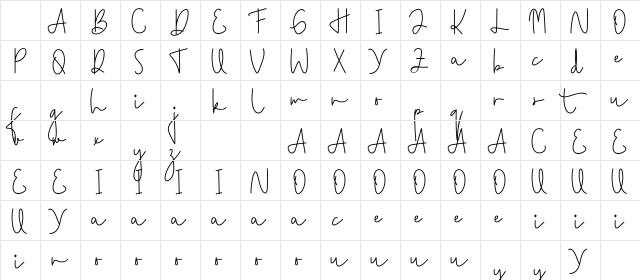
Pep Talk Demo flows with the natural rhythm of handwritten lettering, making it ideal for designs that call for warmth and personal expression.
Font Pairing: Combine Pep Talk Demo with a simple geometric sans for maximum contrast - the tension between flowing curves and clean structure is a classic typographic pairing.
Pro Tip: Use Pep Talk Demo for short runs of text - names, titles, or taglines. Extended body copy in script faces tires the eye quickly.